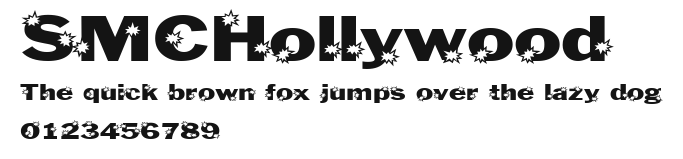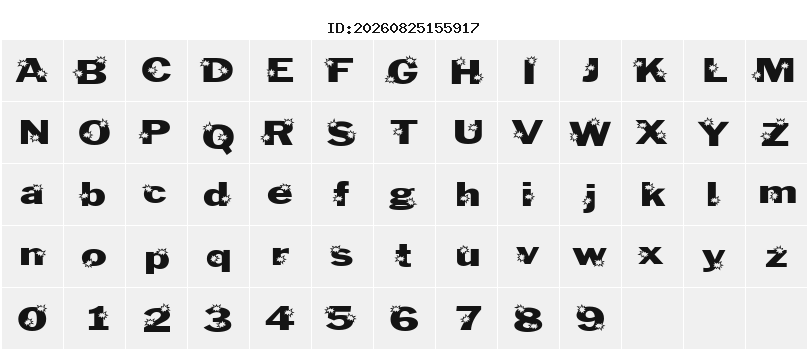
SMCHollywood Preview
• Font Name: SMCHollywood
• Font ID: SMCHollywood
• Full Font Name: SMCHollywood
• PostScript Name: SMCHollywood
• Character Count: 251
About SMCHollywood.ttf
SMCHollywood.ttf is a modern, elegant sans-serif font designed for ultimate readability and visual harmony. Perfect for branding, headlines, web design, and print materials.